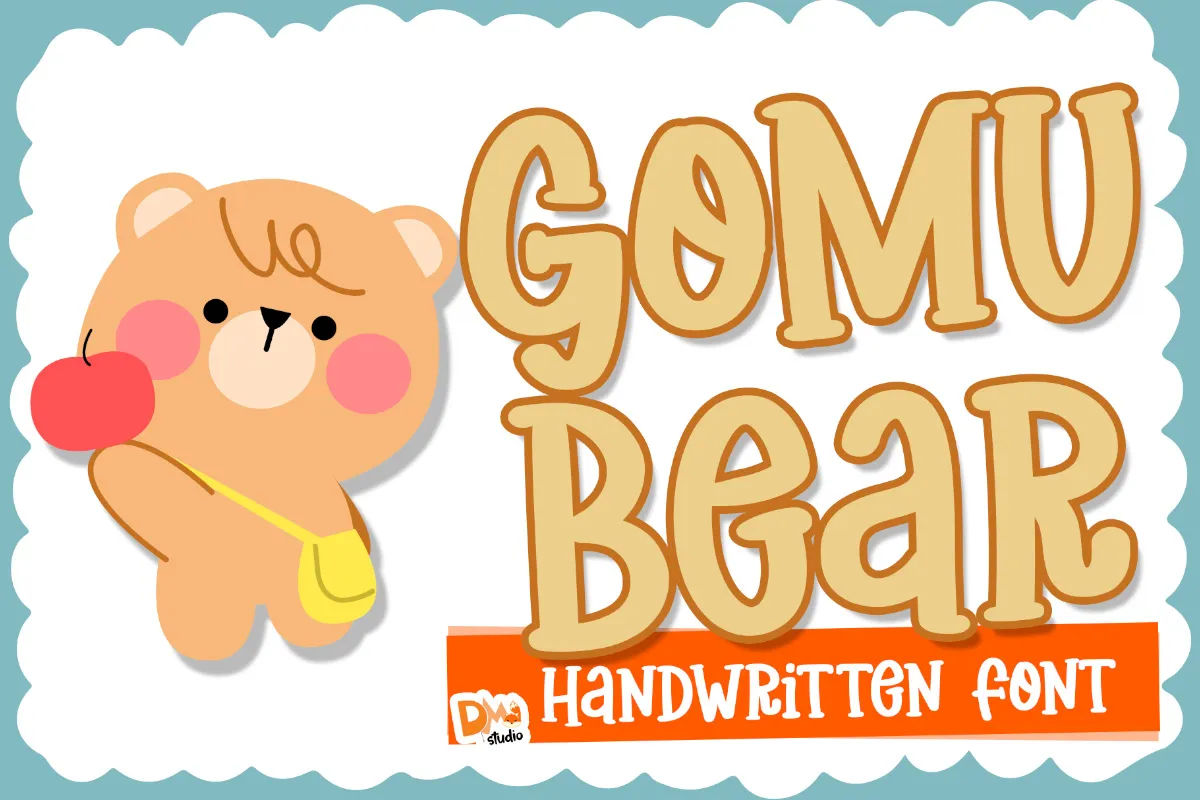
30+ Fonts for Children’s Books to Captivate Young Readers
Need assistance in deciding what typeface would be suitable as fonts for children’s books? Quick, cease your worry! Here, you may see various cute typefaces to be featured in your projects. Let’s pick the best ones now.
31 Fonts for Children’s Books
Don’t be fixated on the illustration only when creating a children’s book; consider its typography. Ensure you’ve picked an intriguing font for it so your work could turn into a best seller.
1. Flower Bee
Flower Bee font
Flower Bee is utterly perfect for kids to learn about their natural surroundings with its playful letterforms.
2. Star Space
Star Space font
Bubbly alphabets included in the Star Space font can also create pleasant feelings for kids to continue reading your story.
3. Gomu Bear
Gomu Bear font
Not only for children’s books, but the Gomu Bear handwritten font will make any creative projects for children look cute and alive.
4. Tropic Jungle
Tropic Jungle font
The Tropic Jungle handwritten font provides diverse intriguing ligature to make your children’s book design more engaging.
5. Playful Time
Playful Time font
When thinking about what font should we use for children’s books, don’t forget to add Playful Time font to your list of choices. The playful spirit shown in every alphabet makes it perfect for a wide range of creative projects.
6. Tropic Sunset
Tropic Sunset font
Tropic Sunset well-depicts the warmth of the sunset. It would be perfectly suitable for kids’ product branding purposes, too.
7. Sunday Kids
Sunday Kids as one of the fonts for children’s books
This Sunday Kid’s font texture blends well with the creative imagination. A good element for kids’ coloring books as well.
8. Tropic Garden
Tropic Garden font
Try Tropic Garden font, the letter shapes are breezy, just like tropical gardens, making it fun for kids to keep reading the book.
9. Baby Plums
Baby Plums font
An out-of-the-box font type, Baby Plums, features a circle outside each alphabet. It appears like a sticker, making a children’s book appear far from ordinary.
10. Starry Nights
Starry Nights font
The Starry Nights typeface has that magic to rock the child to sleep with its playful characters. You can also create engaging kids’ posters to be hung on their walls.
11. Summer Heaven
Summer Heaven font
One of the fun fonts for children’s books, Summer Heaven, would be able to elevate children’s reading experience greatly with its bold and simple letter designs.
12. Autumn Shade
Autumn Shade font
The rounded letter shapes of Autumn Shade make this font look familiar and adorable. Its autumn textures look pretty nice and make it far from dull.
13. Blossom Fairies
Blossom Fairies font
The combination of uppercase and lowercase letters of Blossom Fairies makes this font appear merrier. A palpable choice for headlines and quotes designs as well.
14. Goldy Boldy
Boldy Goldy, the fonts for children’s books
Boldy Goldy, the fonts for children’s books | Image source: DM Studio
Some children’s books would look too basic without bubbly fonts. Boldy Goldy was created to bring uniqueness to every children’s project.
15. Pinky Burst
Pinky Burst font
Pinky Burst font | Image source: DM Studio
The best fonts for children’s books should be vibrant and dynamic, just like the Pinky Burst typeface. It’s impeccable to be featured in creative children’s books.
16. Kidz Block
Kidz Block font
Kidz Block font | Image source: DM Studio
Remember to feature a crafty block font like Kidz Block,  a typeface with clear alphabets, making it easy to read but still look entertaining.
17. Goldy Burst
Goldy Burst font
Goldy Burst typeface will energize your designs with its chunky and solid letters. Combine them with gradient colors for brighter vibes!
18. Letter Magic
Letter Magic font